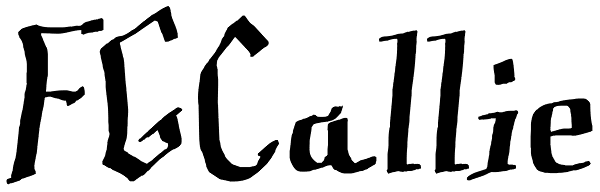
FG Callie
FG Callie is a Calligraphy font, but it shouldn't be taken too seriously :) With curly ends on the descenders and her not so straight lines it's more of a fun font.